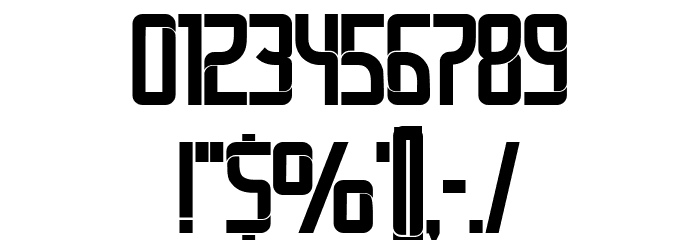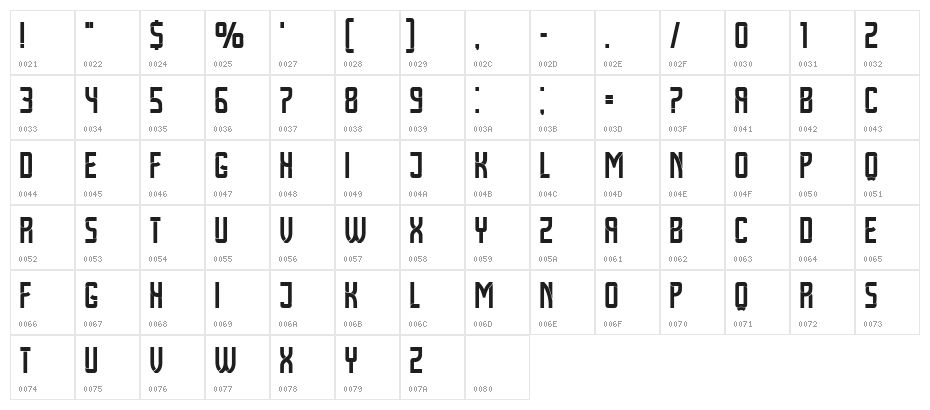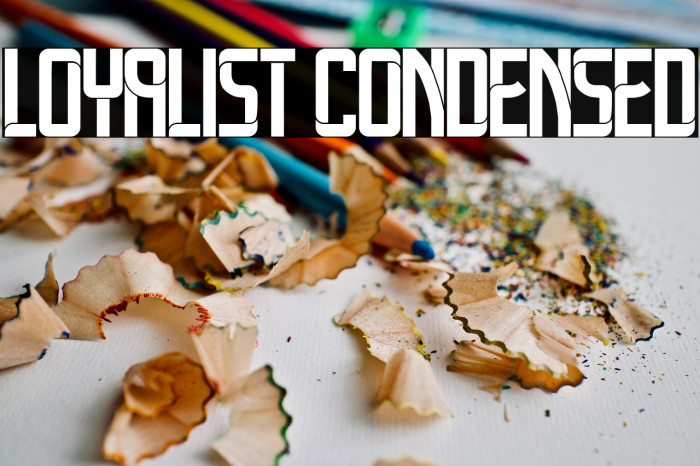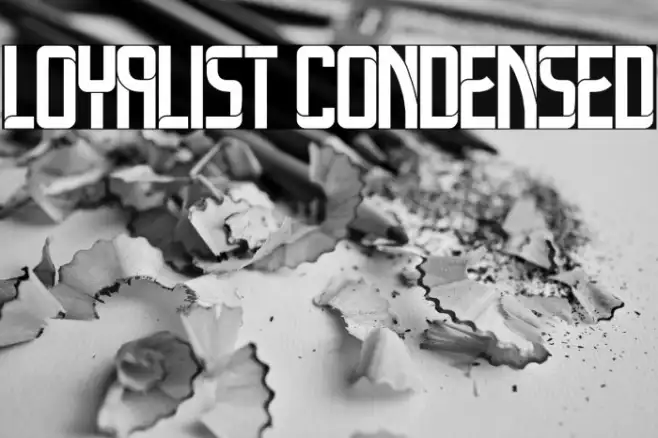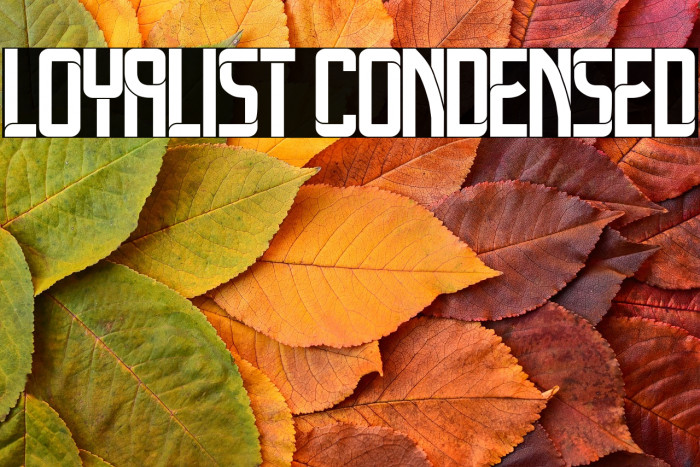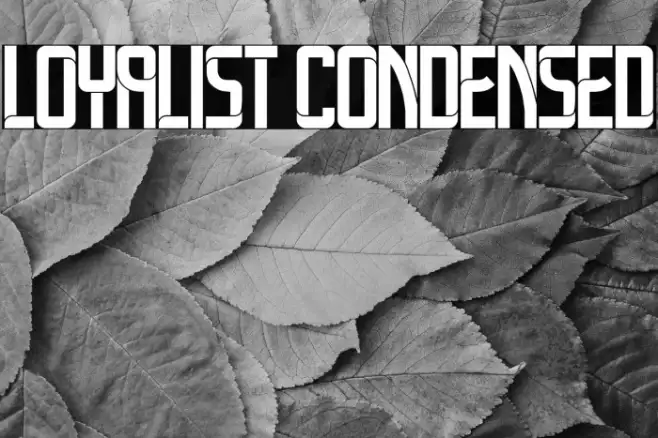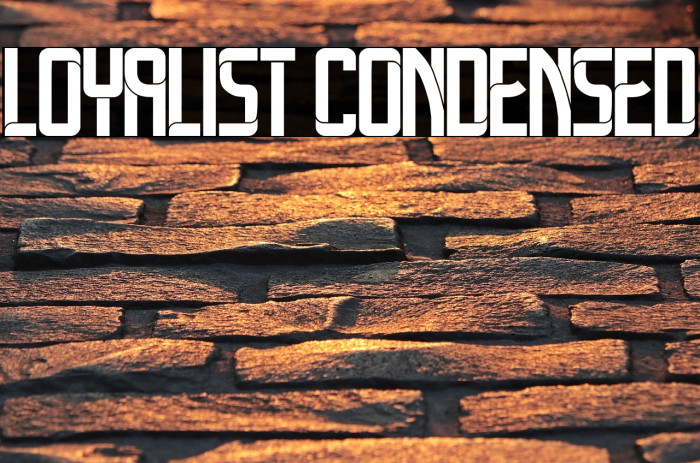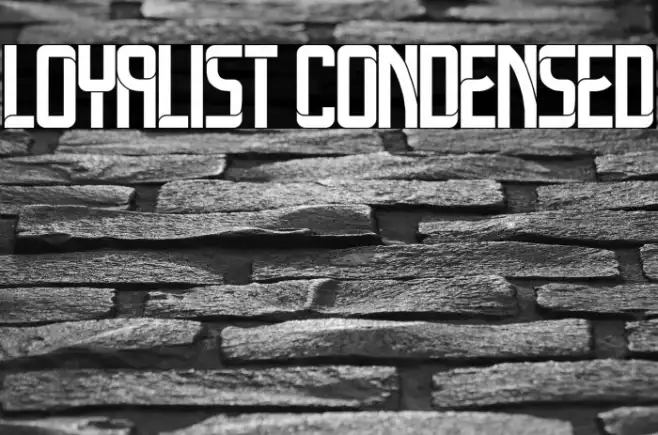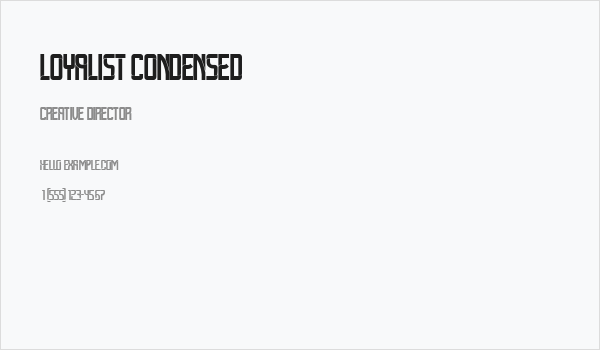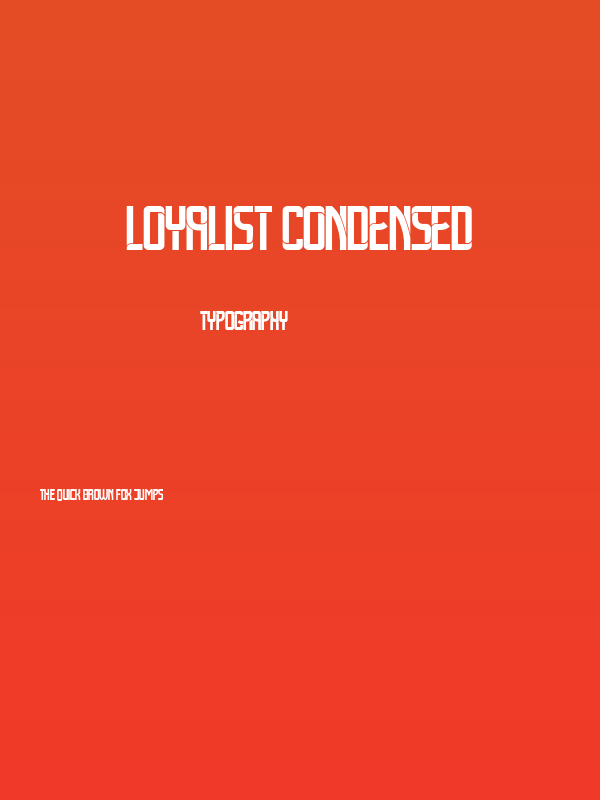
Loyalist Condensed Font
Loyalist Condensed Description
This font features a bold, geometric design with a condensed structure, creating a striking and modern appearance. The characters are constructed with sharp angles and clean lines, giving it a futuristic and edgy feel. The uppercase and lowercase letters maintain a consistent height, enhancing its uniformity. The numbers and special characters follow the same design principles, ensuring a cohesive look across all elements. Its unique style makes it ideal for attention-grabbing headlines and display purposes.
| Proposed Projects | Ideal for branding, posters, and digital media where a modern and impactful look is desired. |